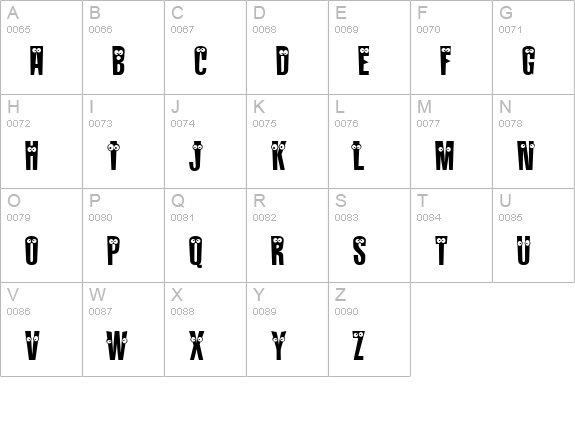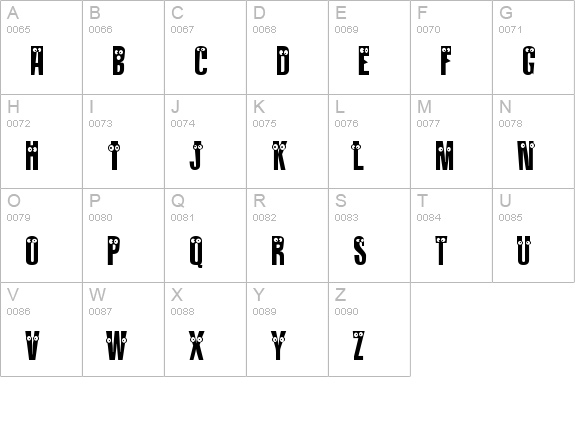
KABlokHeadJam Font Details
Introducing KABlokHeadJam font, a unique and captivating typeface that will make your designs stand out from the crowd. This font is the perfect blend of boldness and creativity, with its distinctive block-like shapes and quirky letterforms. KABlokHeadJam font is a versatile choice for various design projects, whether you're designing a logo, poster, or even a website. Its playful and energetic personality will inject a sense of fun and excitement into your designs, while still maintaining a professional and polished look. But what makes KABlokHeadJam font even more amazing is that it is absolutely free! Yes, you heard it right - this exceptional font is freely available to download at FontsMarket.com. So, you not only get access to a top-quality font, but you also get the added benefit of saving your hard-earned money. Featuring a wide range of characters, including uppercase letters, lowercase letters, numbers, and punctuation marks, KABlokHeadJam font offers endless possibilities for your creative projects. Its clean and crisp lines ensure legibility, even at smaller sizes, making it suitable for both print and digital designs. Whether you're a professional designer or a creative enthusiast, KABlokHeadJam font is a must-have addition to your font collection. Its bold and eye-catching appearance will instantly grab attention and make a lasting impression on your audience. So why wait? Go ahead and download KABlokHeadJam font for free at FontsMarket.com and unleash your creativity like never before. Get ready to embark on a design journey that is bound to leave a lasting impact with this remarkable font.